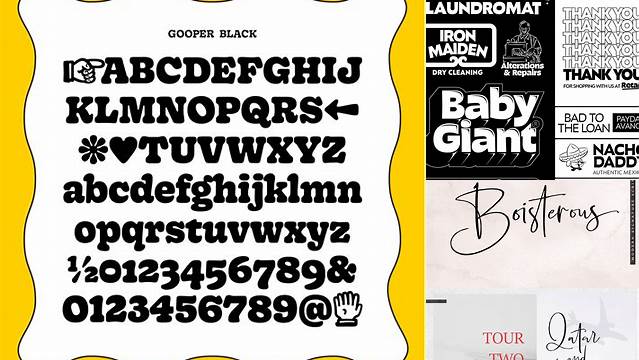
Top Free Display Fonts To Wow Your Designs In 2025
Hey everyone! If you're looking to spice up your designs without breaking the bank, you're in the right place. We're diving deep into the world of best free display fonts 2025 – the ones that will make your projects pop and grab attention. Display fonts are like the rock stars of the typography world; they're meant to be seen, loved, and remembered. They're perfect for headlines, posters, website banners, and anything else where you want to make a bold statement. This guide is packed with the coolest, most versatile, and absolutely free display fonts that you can use in 2025. So, buckle up, get inspired, and let's find the perfect font to take your designs to the next level!
1. Unveiling the Power of Display Fonts: What Makes Them Special?
Alright, before we jump into the font list, let's chat about why display fonts are so darn cool. Unlike those workhorse fonts like Helvetica or Arial, which are designed for reading long blocks of text, display fonts are all about making a statement. They're bold, they're unique, and they're meant to be the star of the show. Think of them as the lead singers in a band, grabbing all the attention. Display fonts are usually used in large sizes, making them perfect for headlines, logos, and any design element that needs to stand out. They often have interesting shapes, unusual letterforms, and a whole lot of personality. The key is to use them strategically, so they complement your overall design without overwhelming it. When used correctly, display fonts can transform a design from bland to brilliant, giving it a unique identity and a memorable look. In 2025, you'll find an even wider range of display fonts to choose from, with designers pushing the boundaries of creativity, offering everything from sleek and modern to quirky and retro styles. The goal is to find fonts that not only look great but also align with your brand's message and aesthetic.
2. Why Free Display Fonts are a Designer's Best Friend in 2025
Let's be real, guys. Designing can be expensive. Software subscriptions, stock photos, and, of course, fonts. But here's the good news: there's a treasure trove of amazing, free display fonts out there just waiting to be discovered! Free fonts are a game-changer for designers on a budget, allowing you to create stunning visuals without spending a dime. In 2025, the quality of free fonts has improved dramatically. You can find fonts that are as beautiful and functional as their premium counterparts. The benefit of using free fonts extends beyond just saving money. It also allows you to experiment and find the perfect font that suits your project. You can try out different styles, play with combinations, and see what works best without the financial commitment. Many free fonts come with open-source licenses, meaning you can use them for both personal and commercial projects. This gives you the freedom to create anything from a personal blog to a client's website. There are resources like Google Fonts and other sites that provide a vast library of free, high-quality fonts. Make sure to check the license of any font before using it, but generally, free fonts are a fantastic resource for any designer looking to elevate their work.
3. Top Criteria for Choosing the Perfect Free Display Font for Your Projects
Choosing the right font can make or break your design. So, how do you pick the perfect free display font from the sea of options? Here's a breakdown of the key criteria to consider in 2025. First, think about the overall aesthetic of your project. Is it modern, vintage, playful, or sophisticated? The font should match the tone and style you're aiming for. Second, consider readability. While display fonts are meant to be eye-catching, they still need to be legible, especially at the size you'll be using them. Avoid fonts that are overly intricate or hard to read. Third, think about the context. Where will the font be used? On a website, in a poster, on social media? Different fonts work better in different situations. Fourth, check the character set and language support. Does the font include all the letters, numbers, and symbols you need? Does it support the languages you're working with? Finally, consider the personality of the font. Does it align with your brand or the message you're trying to convey? A font can communicate a lot about your brand, so choose wisely. By taking these factors into account, you'll be well on your way to selecting the perfect free display font for your project, ensuring it not only looks great but also effectively communicates your message. Always try out a few different fonts to see which ones work best.
4. The Rise of Modern Display Fonts: Sleek and Stylish Choices for 2025
Modern display fonts are all about clean lines, geometric shapes, and a minimalist aesthetic. They're perfect for projects that want to convey a sense of sophistication, innovation, and contemporary design. In 2025, expect to see a lot more of these types of fonts dominating the design landscape. Many modern display fonts feature sans-serif designs, emphasizing simplicity and legibility. These fonts often include a wide range of weights, allowing you to create dynamic and visually appealing headlines. You can use them in your website designs, branding materials, and even in print advertisements. These fonts are designed to be versatile and adaptable to various projects, providing a professional look that can be used in different contexts. When looking at modern display fonts, pay attention to their x-height, which affects readability, and their overall proportions. Some modern fonts have a very high x-height, which makes them incredibly readable, while others prioritize style over legibility. Make sure to balance both style and readability to create a font that will resonate with your audience. Experiment with different letter spacing and kerning to optimize the visual appeal of your modern display fonts. Modern display fonts can instantly upgrade your designs, giving them a fresh and cutting-edge appearance.
5. Vintage Vibes: Retro Display Fonts Making a Comeback
Vintage and retro fonts are experiencing a huge resurgence, especially in 2025. These fonts take inspiration from different eras, giving your designs a touch of nostalgia and personality. You can find fonts inspired by the 1920s, 1950s, 1970s, and everything in between. These fonts are excellent for evoking a sense of history, authenticity, and uniqueness. They're perfect for branding projects, posters, and any design that aims to capture a vintage aesthetic. Many retro fonts feature decorative elements, such as serifs, swashes, and ornate details that add to their charm and character. They can be great for creating a unique brand identity that stands out from the crowd. When choosing a retro font, consider the specific era you want to represent. Do you want a font that screams the roaring twenties, or something more laid back from the seventies? Make sure the font complements your overall design and doesn't feel out of place. Use retro fonts creatively. Try combining them with modern elements to create a unique contrast, or use them in unexpected ways. By embracing retro fonts, you can tap into a rich history of design and create stunning visuals that grab attention.
6. Playful and Fun: Quirky Display Fonts to Brighten Your Designs
Need to inject some fun into your designs? Quirky display fonts are the answer! These fonts are all about personality, creativity, and a touch of whimsy. In 2025, expect a whole new range of quirky fonts with unique shapes, unusual letterforms, and playful designs. These fonts are perfect for projects that aim to be lighthearted, friendly, and memorable. They can be used in children's books, posters, social media graphics, and websites that want to convey a sense of joy and excitement. Many quirky fonts feature hand-drawn elements, irregular shapes, and playful details that add to their appeal. They are an excellent choice for creating a friendly brand identity that stands out. When using quirky fonts, be mindful of readability. Make sure the font is easy to read, even at different sizes. Pair quirky fonts with other elements, such as vibrant colors, illustrations, and playful graphics, to amplify their effect. Don't be afraid to experiment and push the boundaries of creativity. Quirky fonts are all about having fun and expressing your unique style. Embrace these fonts, and you will be sure to inject energy into your designs.
7. Display Fonts for Branding: Creating a Strong Visual Identity
Display fonts play a crucial role in branding. They can help you create a strong visual identity that reflects your brand's personality and values. In 2025, the choice of a display font is more important than ever. It should match your brand's overall aesthetic and message, creating a cohesive and memorable brand experience. The display font you choose for your brand can appear everywhere, from your logo to your website, and printed materials. So, how do you choose the right font? Start by understanding your brand's values. Is your brand modern, classic, playful, or sophisticated? The font should align with these values. Also, consider your target audience. Who are you trying to reach? The font should resonate with your audience and communicate the right message. When you've selected your brand font, make sure to use it consistently across all of your branding materials. This consistency will help build brand recognition and strengthen your brand identity. Create a brand style guide that outlines how the font should be used, including its size, weight, and color variations. This guide will ensure that the font is used consistently across all of your branding materials. Finally, remember to test your font choice. Does it work well across different platforms and contexts? Does it look good at different sizes? By carefully selecting and using your display font, you can create a strong and memorable brand identity that sets you apart from the competition.
8. Pairing Display Fonts: Finding the Perfect Font Combinations
Pairing display fonts with other fonts can be an art form. The right font combination will enhance your design, while the wrong one can clash and make it unappealing. In 2025, it's essential to experiment with font pairings to create visually appealing designs. One popular approach is to pair a bold display font with a more subtle, readable font for body text. This creates a balance between style and readability. You can explore different font styles to see what works best. Consider pairing a modern display font with a classic serif font, or a quirky display font with a clean sans-serif. Another approach is to consider the personality of the fonts. Does the font combination match the tone and message you want to communicate? Do the fonts complement each other or clash? Tools such as Adobe Fonts and Google Fonts provide recommendations for font pairings. Explore these resources to get ideas and experiment. It's also important to test the font combinations. Does the combination work well in different contexts and sizes? Is the design legible? Try to see how the fonts look alongside your graphic elements. By carefully selecting and testing your font pairings, you can create visually appealing designs that effectively communicate your message.
9. Best Websites to Download Free Display Fonts in 2025
Where do you find all these amazing free fonts, you ask? Luckily, there are a bunch of websites offering a wide selection of free display fonts in 2025. Google Fonts remains a top choice, offering a vast library of open-source fonts that are easy to download and use. The fonts are optimized for web use, making them great for website design. Font Squirrel is another popular site, known for its curated collection of high-quality free fonts that are ready for commercial use. DaFont is a great resource, but always check the licensing terms before using a font for commercial projects. BeFonts and 1001 Fonts are other great platforms to explore for an even broader selection. When downloading fonts, always check the license. Make sure that the font can be used for both personal and commercial projects, depending on your needs. Look for fonts that are well-designed, with a good character set and a variety of weights and styles. Check to see if the font supports different languages to ensure your designs are accessible to a broader audience. By utilizing these platforms, you can find a wide range of free display fonts to give your designs a unique flair.
10. Display Fonts in Web Design: Making Websites Pop
Display fonts are essential for making websites stand out in 2025. They're perfect for creating eye-catching headlines, banners, and other design elements. Using the right display fonts can significantly enhance user experience, while also creating a unique visual identity for your website. Think about the overall aesthetic of your website. Does it need to feel modern, vintage, playful, or sophisticated? The display font should match the website's tone and style. Select fonts that are readable at different sizes and on different devices. Make sure the font looks good on both desktop and mobile. Using display fonts in web design requires a keen understanding of web fonts and their performance. Consider the load time of the font and its impact on your website's loading speed. Choose web-safe fonts or opt for optimized web fonts to ensure a smooth user experience. Web-safe fonts load instantly, ensuring users can view the text right away. Display fonts should be used strategically and should complement the overall design. Don't overload the website with display fonts; use them to highlight key information and visual elements. By embracing display fonts in web design, you can create visually appealing and user-friendly websites that leave a lasting impression.
11. Display Fonts for Print Design: Making a Statement in the Real World
While display fonts are great for digital designs, they're also amazing for print projects. Whether it's a poster, brochure, or flyer, the right font can transform your designs. In 2025, print design still matters. With it, you can make a statement that people can hold in their hands. When choosing display fonts for print, consider the medium. Different fonts work better on different materials, so choose your fonts based on the project. Print projects should have high readability, so choose fonts that can be clearly read at a distance. Experiment with different weights and sizes to see what works best. Think about the overall layout and design. How does the font fit into the design? Does it complement the other design elements? Print design presents unique challenges, such as ensuring the font looks good in different lighting conditions. When designing, consider these factors and create print-ready files to avoid any potential issues. By selecting the perfect font and using it strategically, you can create visually stunning print designs that grab attention. Always choose a font that complements the design. Make sure that it fits in the overall look, so it looks professionally done.
12. Display Fonts in Logos: Crafting Memorable Brand Marks
Logos are the face of your brand, and display fonts play a huge role in their design. The right font can help you create a logo that is memorable, recognizable, and represents your brand's personality. The choice of font will shape the overall look and feel of your logo, communicating a lot about your brand. When selecting display fonts for a logo, consider your brand's values and target audience. Is your brand modern, classic, playful, or sophisticated? The font should align with these values and appeal to your target audience. Choose a font that is unique and memorable. The logo should stand out from the competition. Ensure that the font is easy to read at different sizes and in different contexts. Make sure the logo looks good on all platforms and in all sizes. Consider the versatility of the font. Can the logo be adapted for use in various applications, such as websites, business cards, and social media? The logo design should be timeless. Choose a font that can last for years, and avoid trends that may quickly become outdated. Your logo should be consistent with your brand style guide. Consistency is key, so use the font consistently. By investing time and care into the font choice, you can create a logo that serves as a powerful marketing tool, building brand recognition and leaving a lasting impression.
13. Tips and Tricks for Working with Free Display Fonts
Working with free display fonts is fun, but there are also some things you need to be aware of. Here are some tips and tricks to make the most of them! First, always test the font before you use it. Make sure it's readable, and that it looks good in different sizes and on different backgrounds. Experiment with different font weights and styles. This will help you create dynamic designs that grab attention. Play with kerning and letter spacing to optimize readability and visual appeal. You can make a lot of adjustments that will work for your projects. Check the license for the font. Make sure it allows commercial use, if needed. Download fonts from reputable sources. Avoid downloading from questionable websites, as they may contain malware. When using free display fonts in your designs, make sure the font complements the other elements in your designs. Using these tips, you can make the most of free display fonts and enhance your designs.
14. The Future of Display Fonts: Trends to Watch in 2025
The world of display fonts is constantly evolving, and 2025 promises to bring new trends and innovations. Here's a sneak peek at what you can expect: Expect to see more variable fonts, which allow you to adjust weight, width, and other attributes, offering greater design flexibility. There will also be an increase in hand-drawn fonts and custom typography. These fonts will offer a unique, personalized touch that grabs attention. Furthermore, there'll be more emphasis on inclusivity and accessibility. Font designers will be creating fonts that support a wider range of languages and have clear character forms for those with visual impairments. Expect more experimentation with new technologies. This will bring new capabilities for creating stunning designs. It's worth staying up-to-date with current design trends. You'll be ready to use the latest font styles and techniques to take your designs to the next level. By following these trends, you'll be able to create cutting-edge designs that capture attention. In 2025, you can use the new fonts to take your designs to the next level.
15. Display Fonts and Readability: Balancing Style and Function
While display fonts are all about style, readability is also critical, ensuring your message is easily understood. In 2025, finding the right balance between style and function will be key. When choosing a display font, consider the size at which it will be used. Some fonts are designed to be seen at large sizes and may not be suitable for smaller text. Think about the context. Where will the font be used? For headlines, larger sizes are important, while readability becomes crucial for body text. Experiment with different font weights and styles to find the best balance between style and readability. Pay attention to the x-height of the font, which affects how easily the text can be read. Generally, a higher x-height makes a font more readable. Consider the contrast between the font and the background. Make sure there's enough contrast to make the text easily visible. Avoid overly decorative fonts or those with intricate details. They can be hard to read, especially at smaller sizes. The goal is to create a design that is visually appealing but also easy to understand. By balancing style and function, you can make your design effective and engaging.
16. The Best Display Fonts for Headlines in 2025
Headlines are all about grabbing attention, and the right display font can make all the difference. In 2025, you can choose from a wide array of fonts. Start with clean and modern fonts, which provide a professional and contemporary feel. Think about bold, sans-serif fonts. They work well for headlines that need to grab attention. Playful and quirky fonts add a touch of personality and fun to your headlines. Look at the vintage or retro fonts, to give your headlines a classic and timeless look. Select the best font for your project. Choose a font that matches your brand's aesthetic and message. Ensure the font is easily readable, even at larger sizes. Make sure it provides the best user experience. Make your headlines memorable, so that the user can get more engaged with your content. By choosing the perfect font, you can create headlines that capture attention, convey your message, and encourage engagement. Consider the font weight, size, and style. Experiment with different combinations to find the perfect fit. The right font will make your headlines shine.
17. Display Fonts for Social Media: Making Your Content Shareable
In the fast-paced world of social media, display fonts are essential for creating content that stands out and gets shared. They're the perfect tool to make your social media posts visually appealing. In 2025, it will be important to consider the various platforms. Choose fonts that work well on different social media platforms. These will make it easy to share your content. Use fonts that match your brand identity. This consistency will reinforce your brand's visual presence. Make your posts more eye-catching. Try using bold and eye-catching display fonts in your content. Always make sure your fonts are easy to read. They will enhance your content's readability. Pair your fonts with engaging visuals. Use images and videos to complement your text and make your content more visually appealing. By implementing these tips, you can create social media content that is attractive and shareable. Select the fonts that will reflect your brand. Always choose the best and the appropriate fonts for your designs.
18. Advanced Typography Techniques with Display Fonts
To really elevate your designs, understanding advanced typography techniques is key. Let's explore some advanced techniques with display fonts! One useful technique is letter spacing and kerning. Experiment with these settings to optimize the visual appeal of your text. Vary font size and weight to create visual hierarchy and direct the reader's eye. Use ligatures, which are special characters that combine two or more letters into a single glyph. This adds a touch of elegance. Experiment with text wrapping and alignment to create unique and interesting layouts. Consider using drop shadows, outlines, and other effects to add depth and visual interest. Don't forget to experiment with layering text, combining different display fonts to create unique and dynamic designs. Embrace these advanced techniques. They will allow you to create visually stunning designs that grab attention. These will increase your design capabilities.
19. Display Fonts and User Experience: Enhancing Website Usability
Display fonts can significantly impact user experience (UX) on your website. Here's how to use them to enhance usability! Choose fonts that are readable and easy to scan. Make sure the fonts provide easy readability. It is important to select fonts for different screen sizes, so that the text is still clear. Create a visual hierarchy. Use different font sizes, weights, and styles to guide the user's eye. Contrast is important, so make sure there's enough contrast between the font and the background. This will make the text visible, and it will enhance usability. Make sure the fonts are compatible with your website's platform. Ensure the fonts are working on different platforms. Prioritize the user. Design with their needs in mind. By using these tips, you can create a website with great UX, that is both visually appealing and easy to navigate.
20. Display Fonts for E-commerce: Boosting Sales with Visual Appeal
In e-commerce, visual appeal is everything. Display fonts are essential for creating visually stunning designs that boost sales! Use display fonts for headlines, product descriptions, and calls to action. They help you create attention-grabbing content. When selecting fonts, consider your brand's aesthetic. It's important to select fonts that align with your brand. Use fonts that showcase your products. Pair the fonts with high-quality product images to create a cohesive look. Ensure the fonts are readable, especially on mobile devices. This enhances usability and improves conversion rates. Consider adding text effects like drop shadows. Make sure the text is engaging and stands out. Test different font combinations. Always see which one works best. Using these methods, you can create visually appealing designs that will grab attention and increase conversions.
21. Display Fonts and Accessibility: Designing for Everyone
Accessibility is a must in modern design. Here's how to make your display fonts accessible to everyone! When choosing fonts, make sure they have clear character forms. This will ensure readability for people with visual impairments. Provide sufficient contrast between the font and the background. It's very important to enhance readability. Avoid using fonts that are overly ornate or difficult to read. They can hinder comprehension. Use font sizes that are appropriate for different screen sizes. Always ensure that the text is readable on all devices. Consider providing alternatives, such as audio descriptions or transcripts. This can increase access. By incorporating these tips, you can create designs that are inclusive and accessible to all. Make your content inclusive. Ensure that everyone has the opportunity to access and enjoy your work. Ensure all of your users can get information on your website.
22. The Psychology of Fonts: How Display Fonts Influence Perception
Fonts can influence the way people perceive your brand. Display fonts convey emotions and create a lasting impression. When selecting display fonts, consider the emotions you want to evoke. Do you want to create a feeling of trust? Modern and clean fonts can project trustworthiness. Playful fonts can create excitement. Think about the message you want to communicate and choose a font that complements that message. Understand how different fonts can impact how people perceive your brand. Experiment with different font combinations. See which ones work best with your brand's identity. Always select the font which best represents your brand's style. Use these tips to make sure your brand is represented well.
23. Color and Display Fonts: Creating Visual Harmony
Color and font selection are important aspects of visual harmony. Let's explore how to use color to enhance your display fonts! Use the color of the font to complement the overall design. Experiment with color to create contrast. Ensure the text is easy to read. Consider the emotions that different colors evoke. Match the color of the font with the message you are trying to convey. Consider how different colors will look together. Make sure there is great visual harmony. The design will create a better appeal and get more attention. Use these tips to make sure your fonts and colors will create a great experience.
24. Display Fonts in Motion Graphics: Making Typography Dynamic
Display fonts come alive in motion graphics! Here's how to use them to create dynamic typography! Animate the font to add visual interest. Use different effects to make the font more engaging. Sync the font with the music. This will increase the appeal of your motion graphic. Experiment with text transitions. Make the motion graphics more memorable. The design should match the overall message. Using these techniques, you can elevate your motion graphics and enhance the impact of your message.
25. Troubleshooting Common Font Issues
Even with the best fonts, you might run into some problems. Here's how to troubleshoot them: Make sure the font is installed correctly. If it isn't installed correctly, this can cause issues. Check your font license. This will make sure that you have the right to use it. Make sure your font supports all the characters. Check the font on multiple devices. If it doesn't appear right, there can be a problem. If you are having issues with the font, always try to fix them. Contact the font designer. Always make sure you have your problem fixed. By following these steps, you can make sure your font will work properly.
26. Display Fonts and Cultural Sensitivity: Avoiding Missteps
Cultural sensitivity is important in design. Here's how to avoid missteps when using display fonts! Understand how different cultures perceive different fonts. It is important to be aware of these types of things. Avoid fonts that are offensive or inappropriate. Always check the culture of the people that will see your content. Use fonts that are appropriate for your target audience. Try to design to include everyone. By showing consideration for others, you can create designs that are more welcoming and inclusive.
27. Future-Proofing Your Designs: Choosing Timeless Display Fonts
Choosing timeless display fonts will make your designs look great for years. Always consider the trends, and choose fonts that will last. Opt for fonts that are versatile and will work with any design. Choose fonts that are easy to read. Always select a font that will fit your brand's identity. Remember to keep in mind that you have a timeless design that will last for many years. Choose a font that will stand the test of time. You want the audience to remember it as well.
28. The Importance of Font Licensing: What You Need to Know
Font licensing can be confusing, but it's vital to understand. Here's what you need to know! Always read the font license before you use the font. The license will tell you how you can use the font. Check if the font is free for commercial use. Understand the limitations of the font. Be sure the font meets all the requirements. If you are not sure of the licensing, you should always ask. Make sure you are following the rules and regulations. Always respect the licensing. If the rules are not followed, there can be legal action. Knowing the font licensing will help you make the best choices for your designs.
29. Display Fonts and Open Source: The Benefits of Community-Driven Design
Open source fonts come with benefits and can enhance the design. Open source will give you more control. You can modify and customize the design. The open-source community often provides extensive support and resources. Open source fonts are usually available for free. Using open source fonts allows you to make sure you can use the font without issues. Using open source fonts can be a great thing for designs. It is important to remember the open source license. There is usually extensive documentation. Open source fonts offer several benefits.
30. Combining Display Fonts with Other Design Elements: Creating a Unified Look
Display fonts will look their best with other elements. Here are some tips for combining display fonts! Always make sure you have visual harmony. The different elements should be combined well. Consider the other design elements. These will make your overall design have better appeal. The display fonts should complement the images. The fonts and the images should be unified. Make sure your color choices are harmonious. Always consider your message. A unified design creates a cohesive experience. All elements should work together in the design. By using these methods, you can create a unified look. Your designs will have more appeal and create a better user experience.